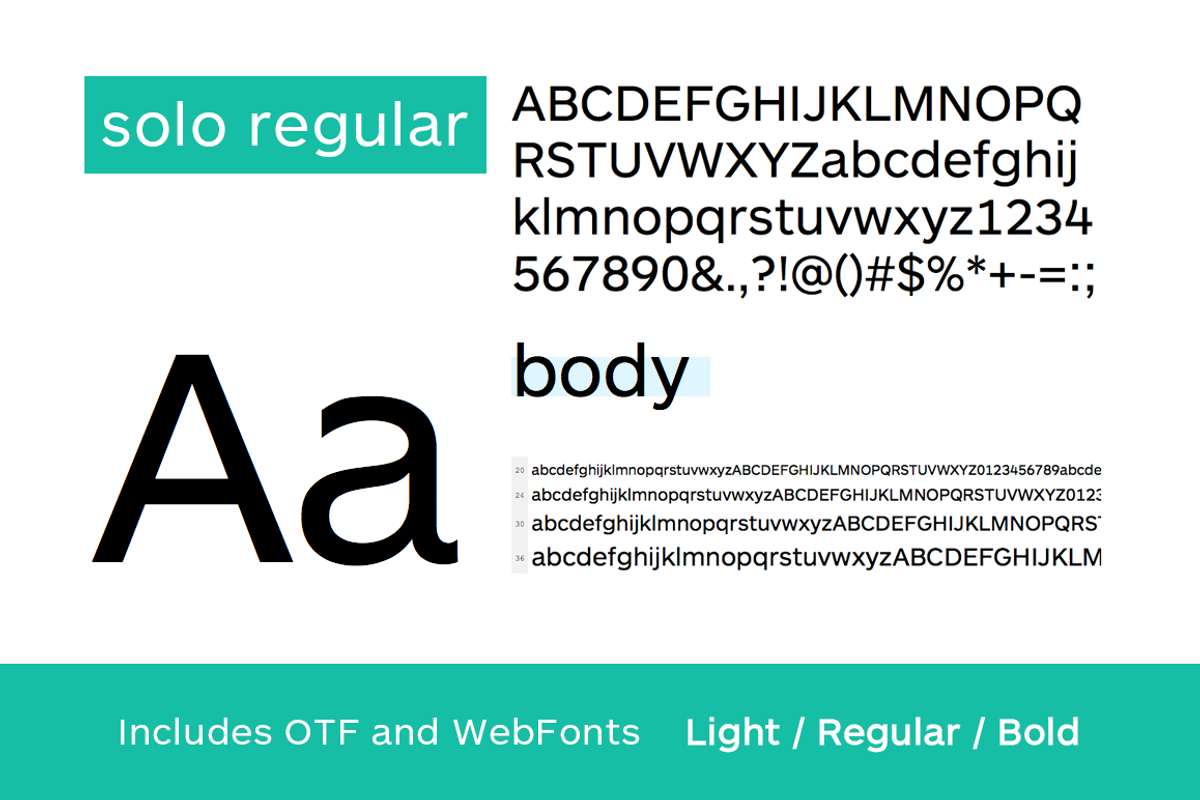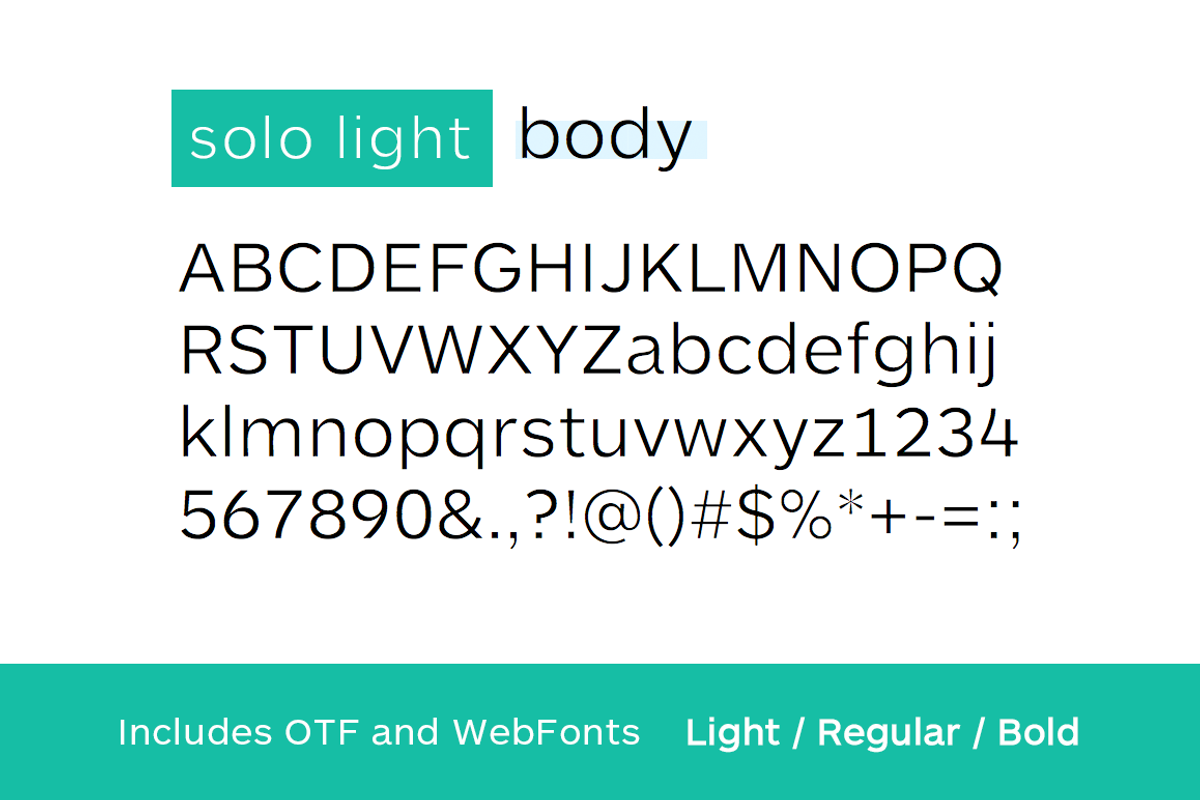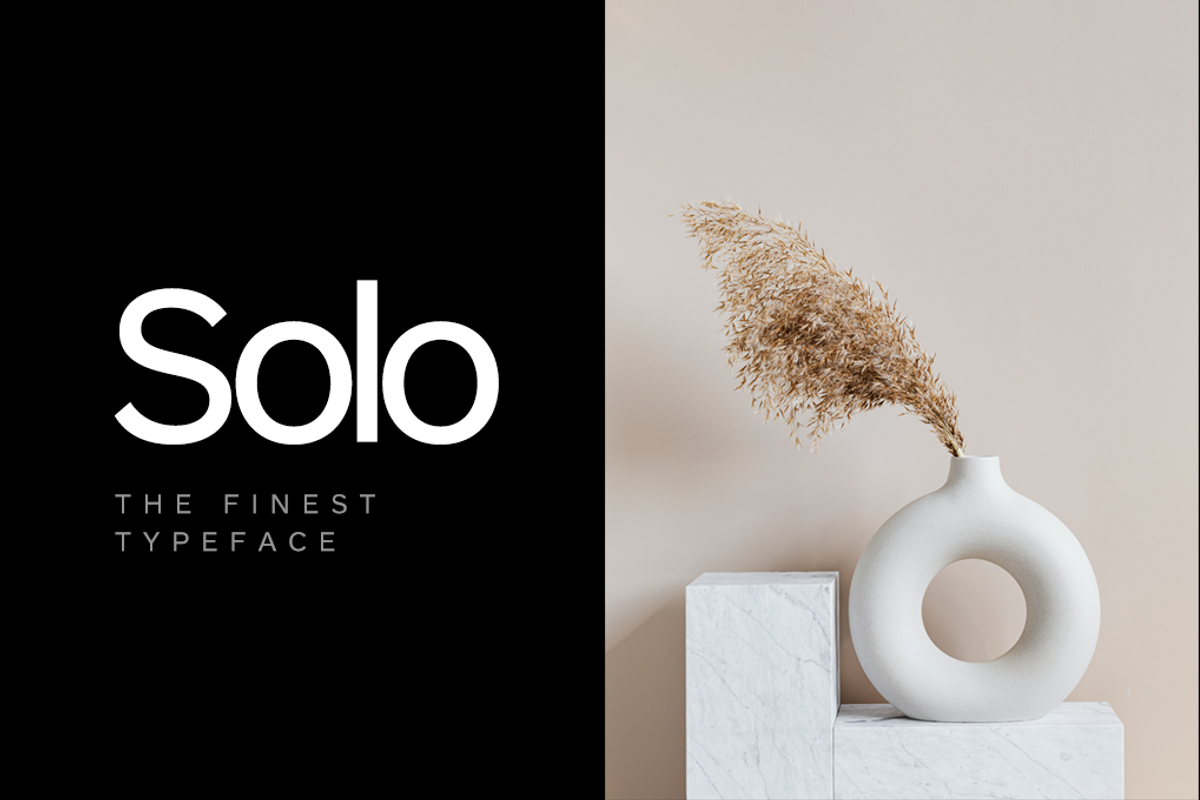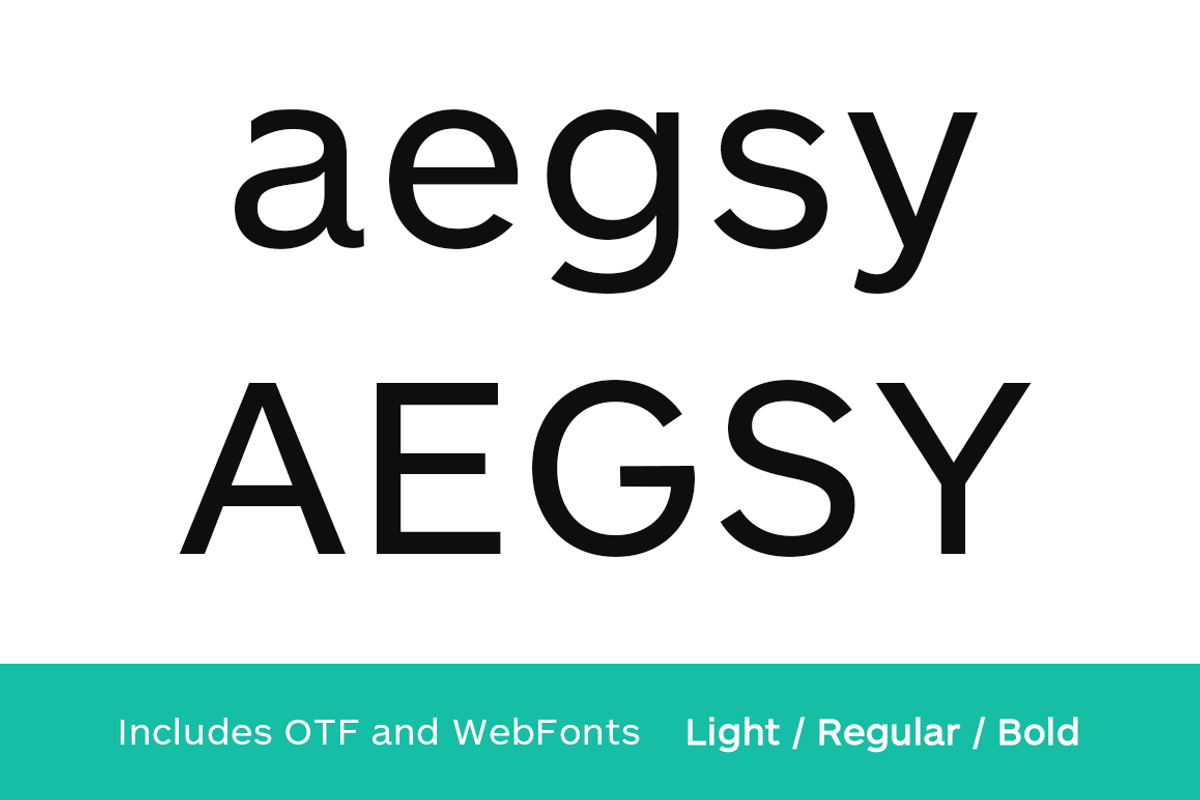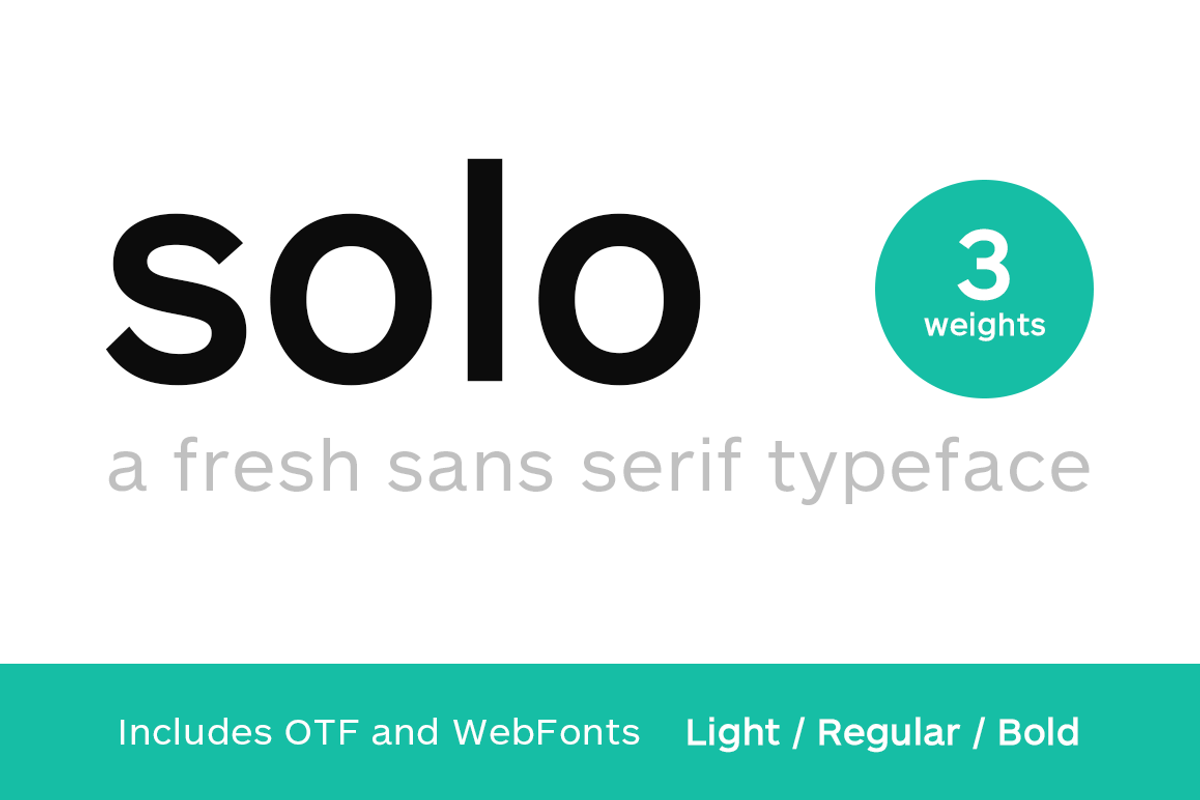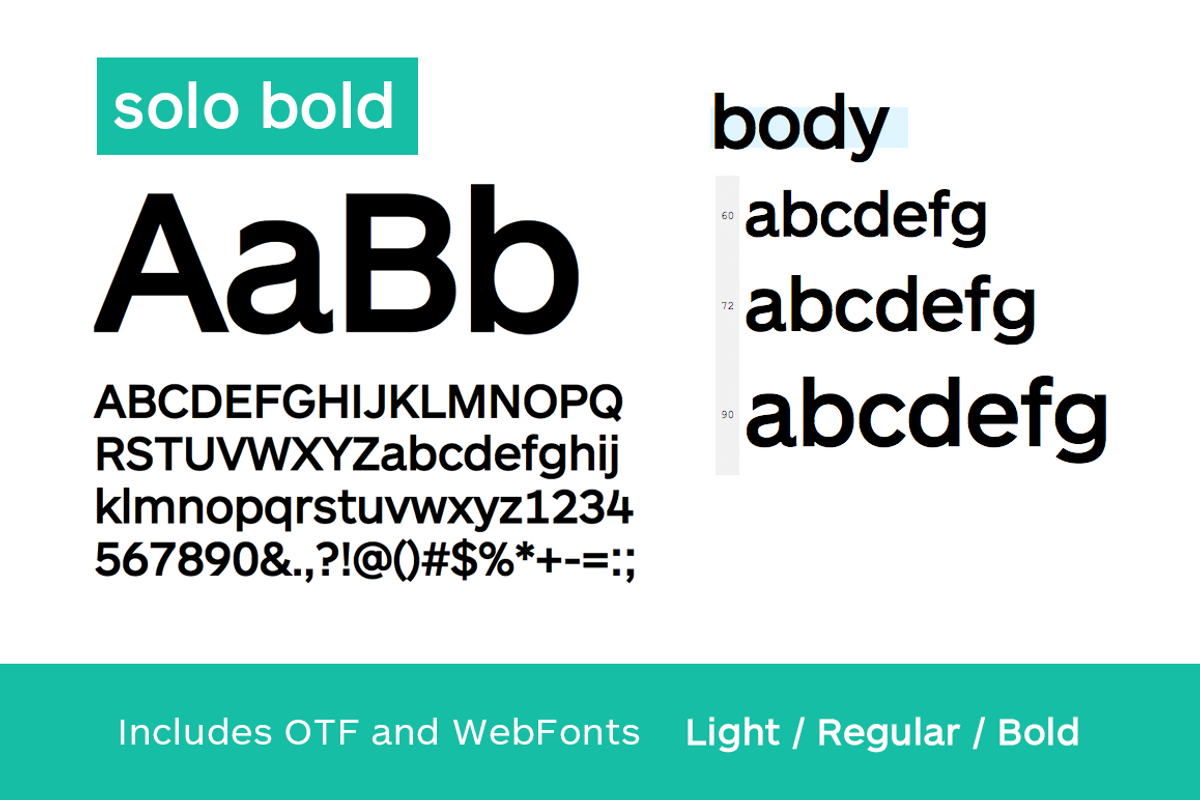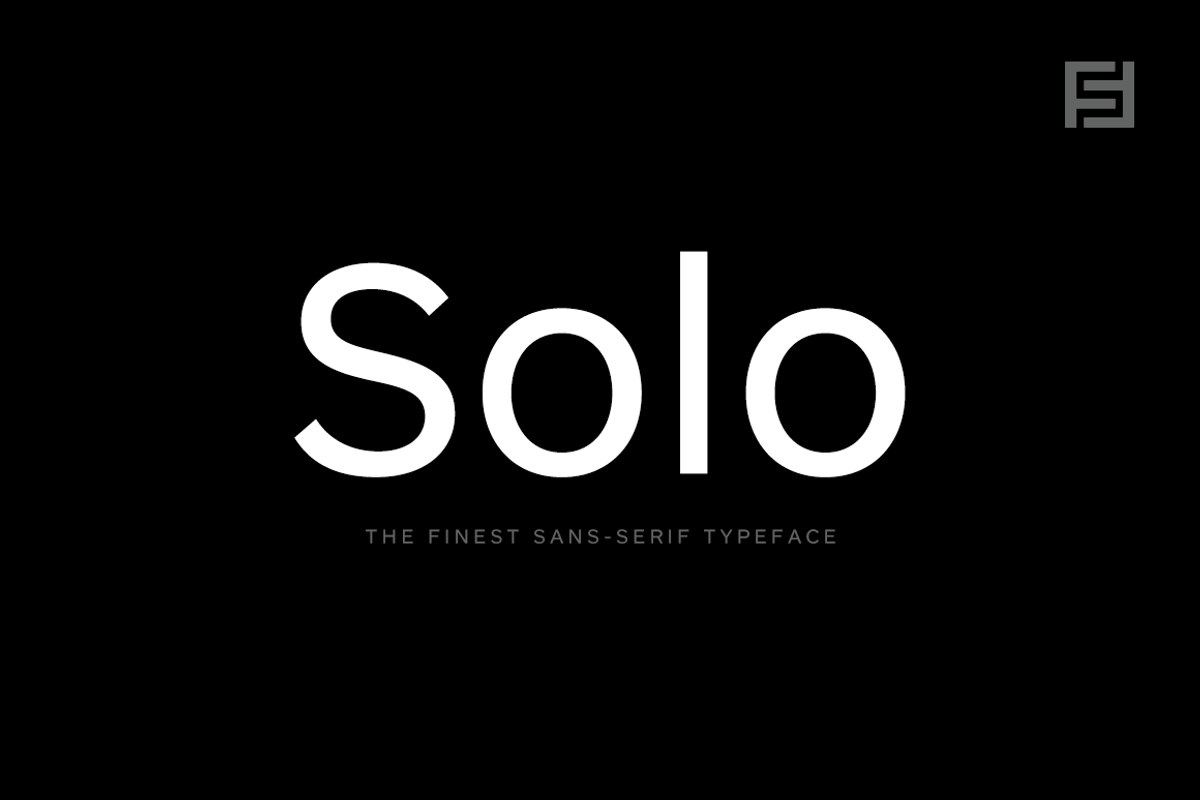
SOLO- Sans Serif Font Family
SOLO- Sans Serif Font Family by Designova® is a font selected for branding, posters, packaging, typography.
- Solo Sans Light
- Solo Sans Regular
- Solo Sans Bold
Why SOLO- Sans Serif Font Family is worth a look
SOLO- Sans Serif Font Family by Designova® fits naturally into Branding, posters, packaging, typography.